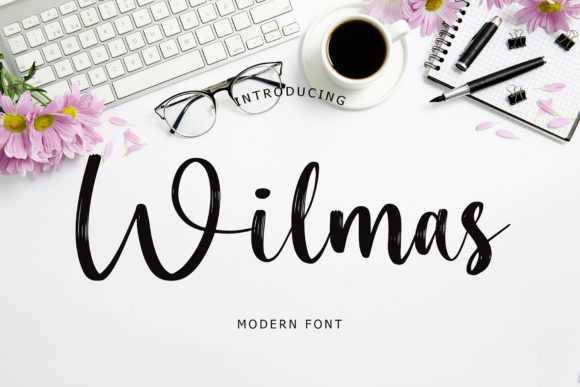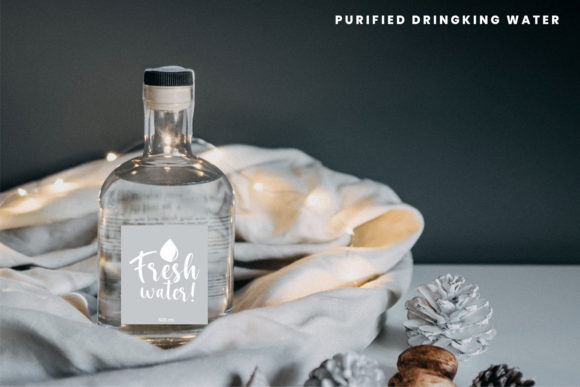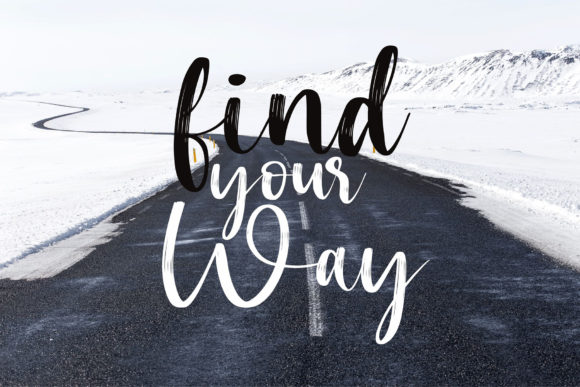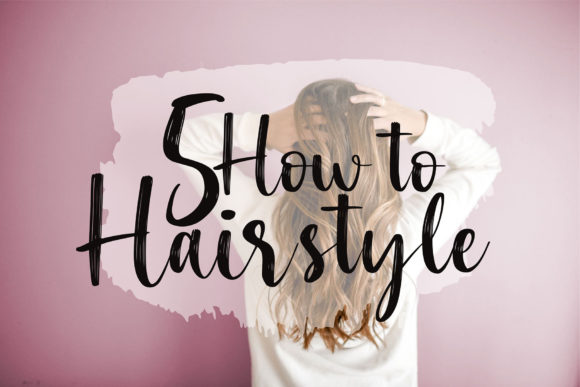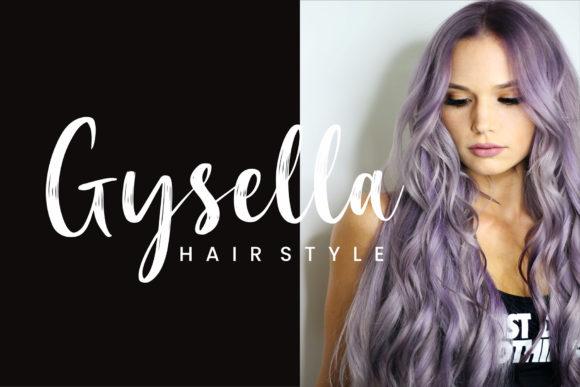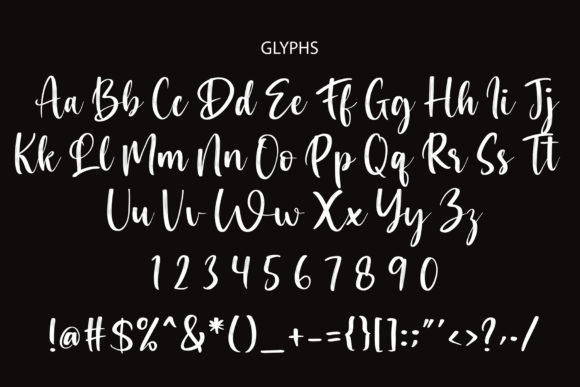
Wilmas Font
About Wilmas Font
Wilmas is a creative and wonderful handwritten font with a unique brush-style that makes it look like each letter has been painted on. This beautiful script can make your text appear elegant, luxurious, and modern!